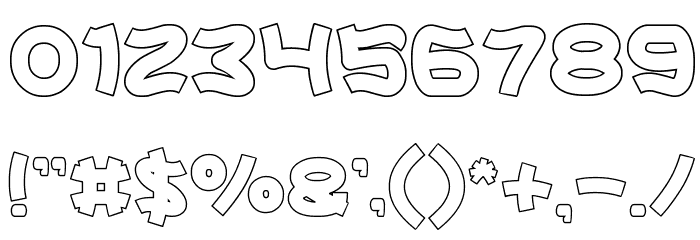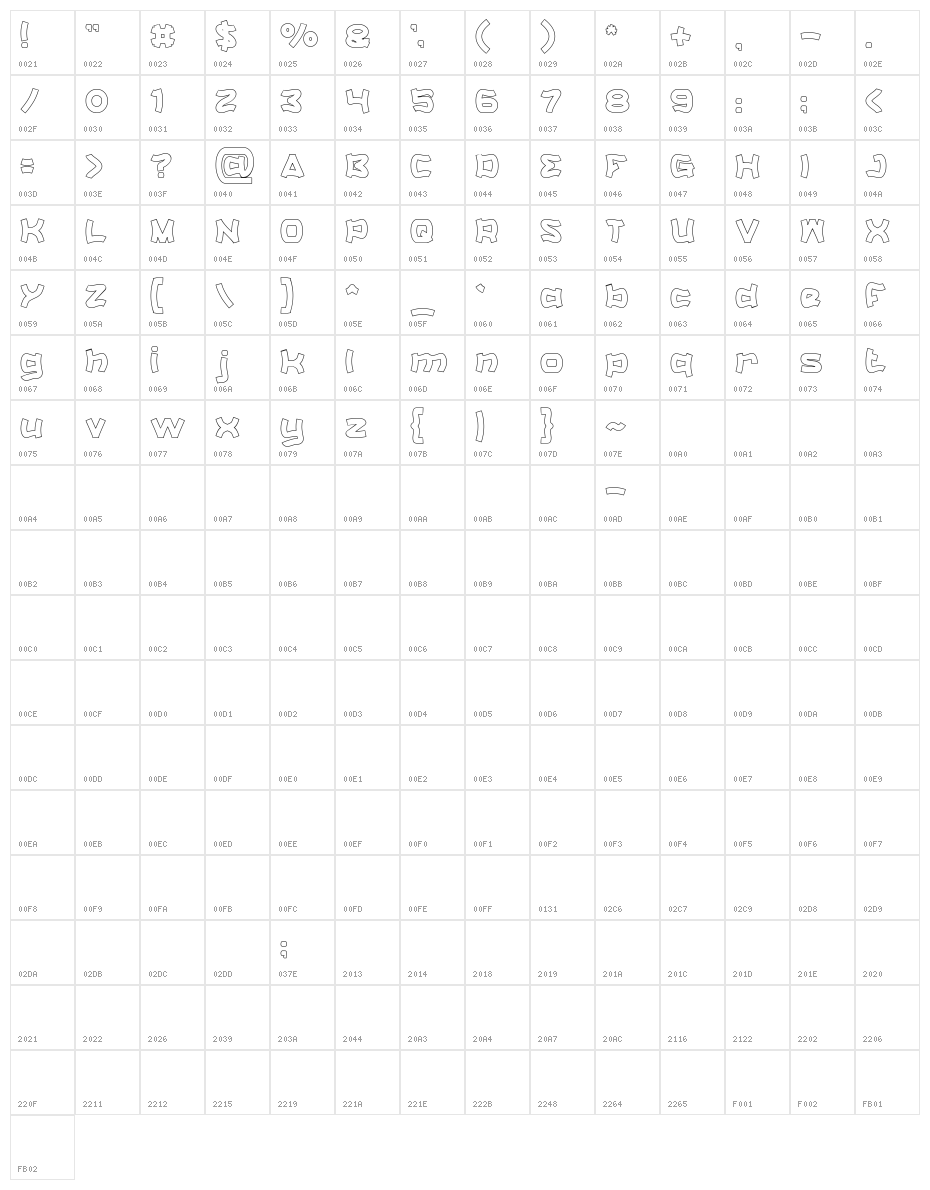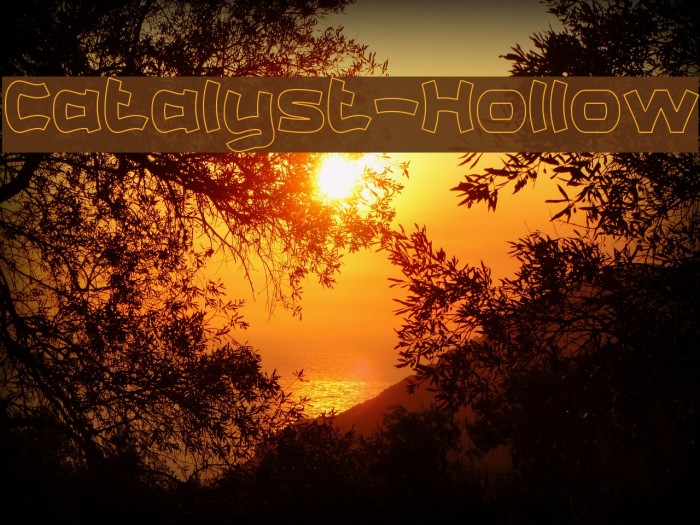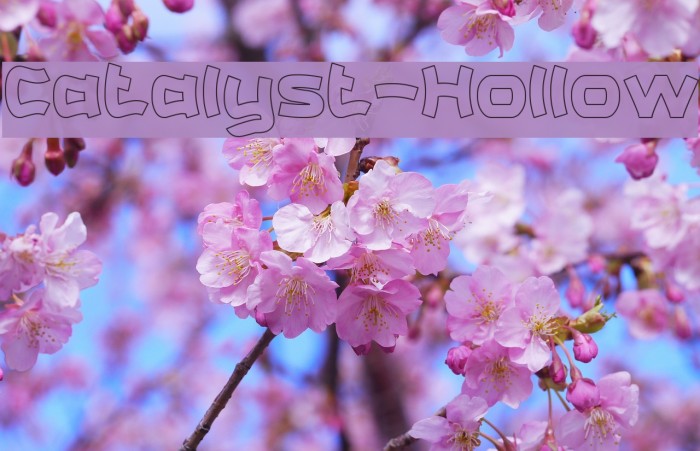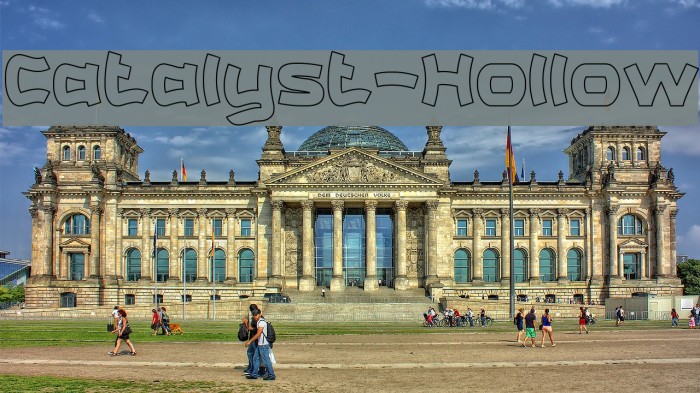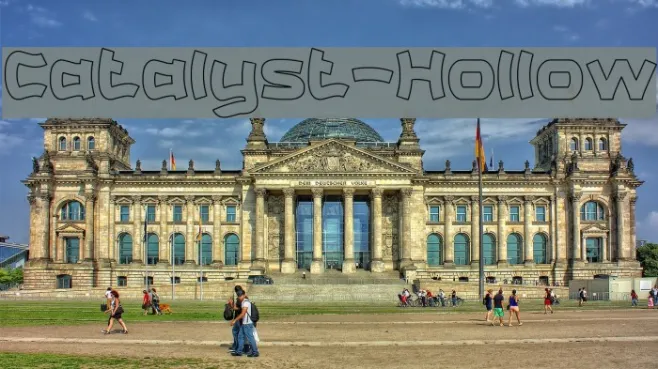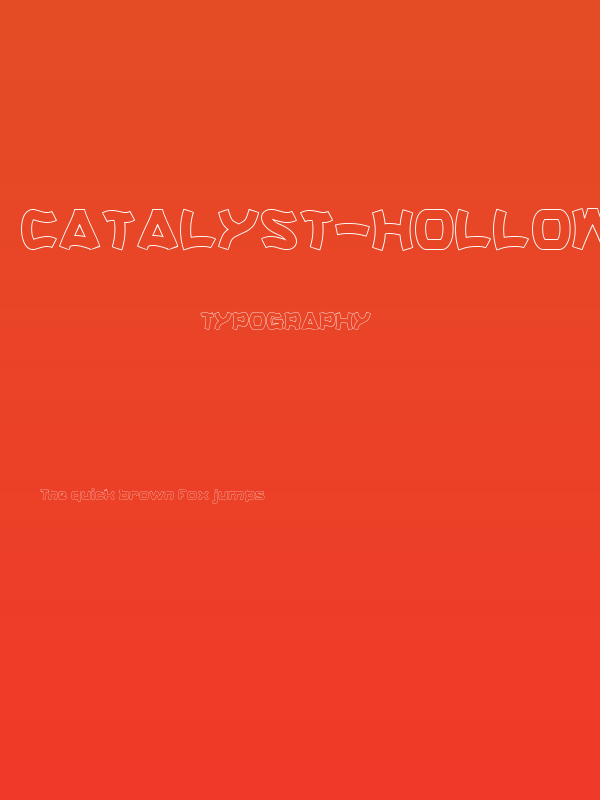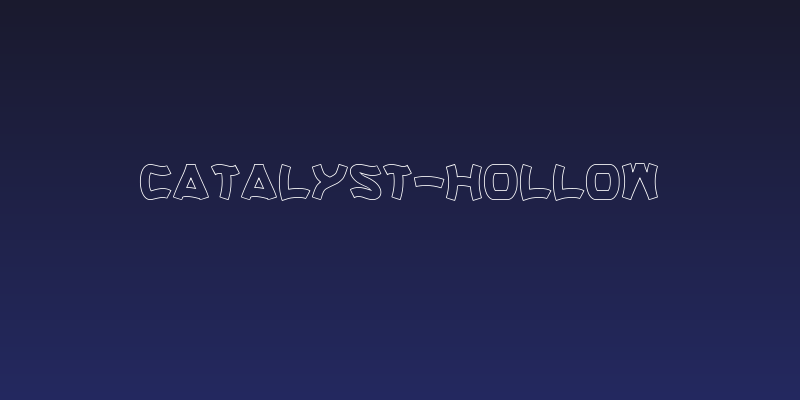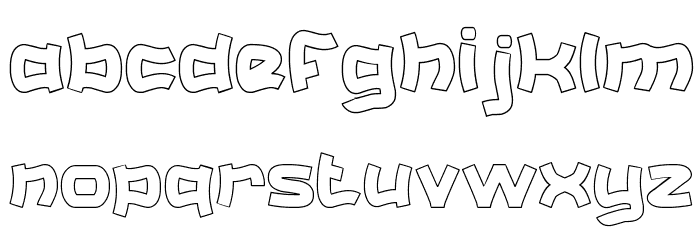
Catalyst-Hollow Font
Catalyst-Hollow Description
This font features a bold, hollow design with a playful and dynamic appearance. The characters are outlined, giving them a three-dimensional effect that stands out on any background. The uppercase and lowercase letters maintain a consistent style, with angular and slightly irregular shapes that add a sense of movement and energy. The numbers and special characters follow the same design principles, ensuring a cohesive look across all text elements. This font is ideal for projects that require a fun and eye-catching typeface.
| Overall Style | Playful, Dynamic |
| Proposed Projects | Perfect for posters, children's books, comic titles, and playful branding. |